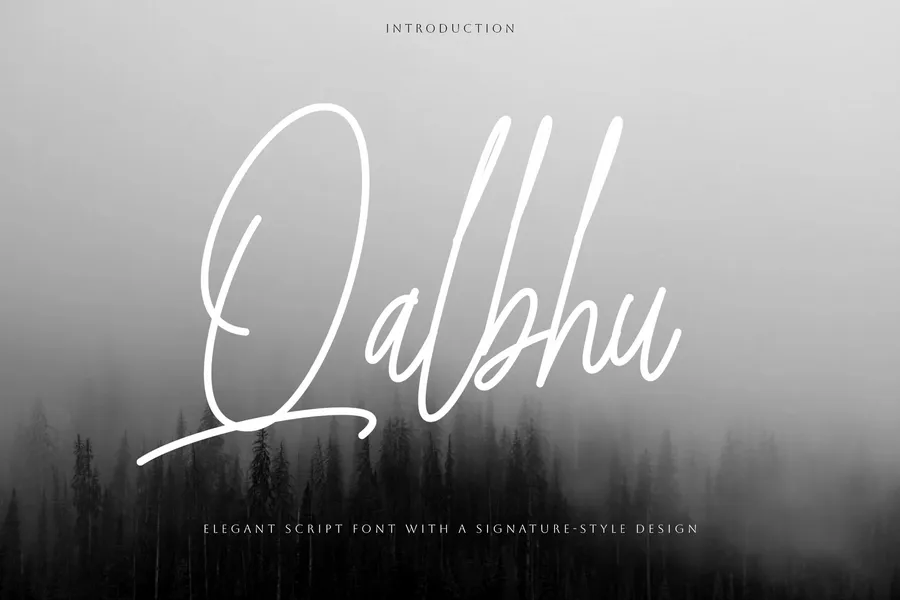
Qalbhu – Signature Script Typeface
Qalbhu is a signature script typeface that features fluid strokes and a natural handwritten style. Designed to mimic personal signatures, this font is ideal for use in branding, logos, social media graphics, invitations, and packaging. Its flowing lines and smooth rhythm give it a refined and authentic look. The font includes uppercase and lowercase letters, numerals and punctuation.